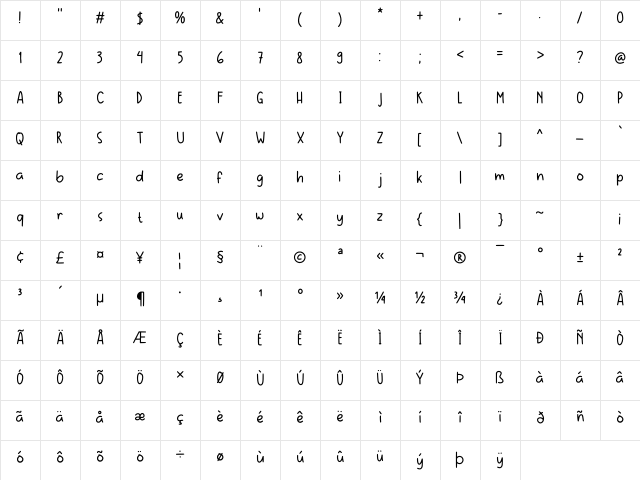
Complete Cabe Rawit Regular glyph index. Displaying only characters natively supported by Cabe Rawit Regular font.
Cabe Rawit is a composed and adaptable typeface that performs quietly and consistently across a wide range of design contexts.